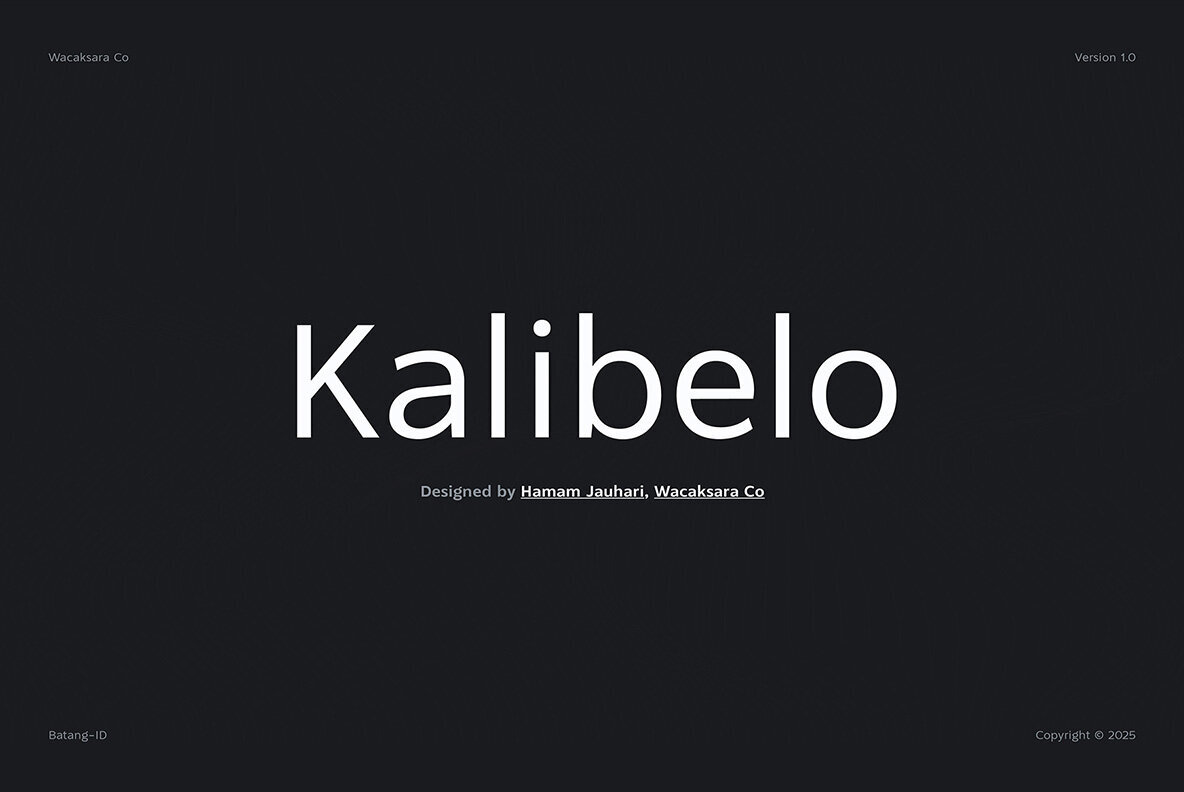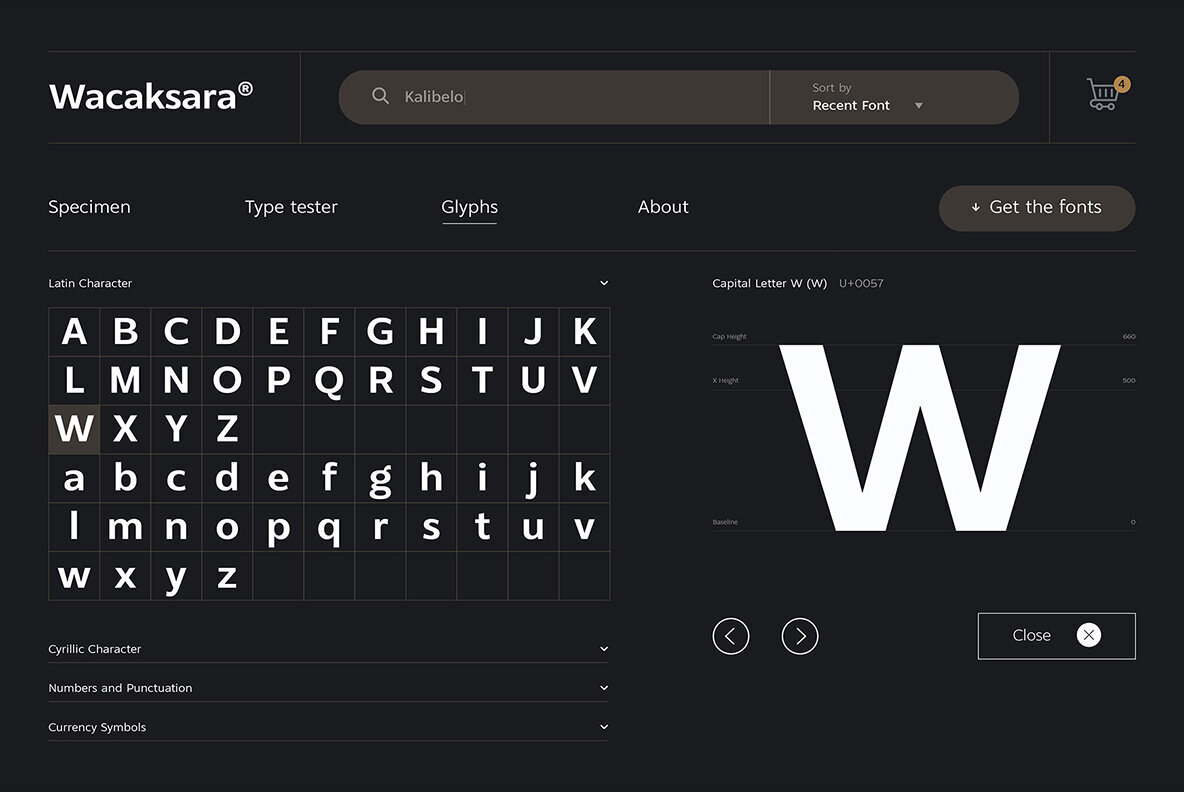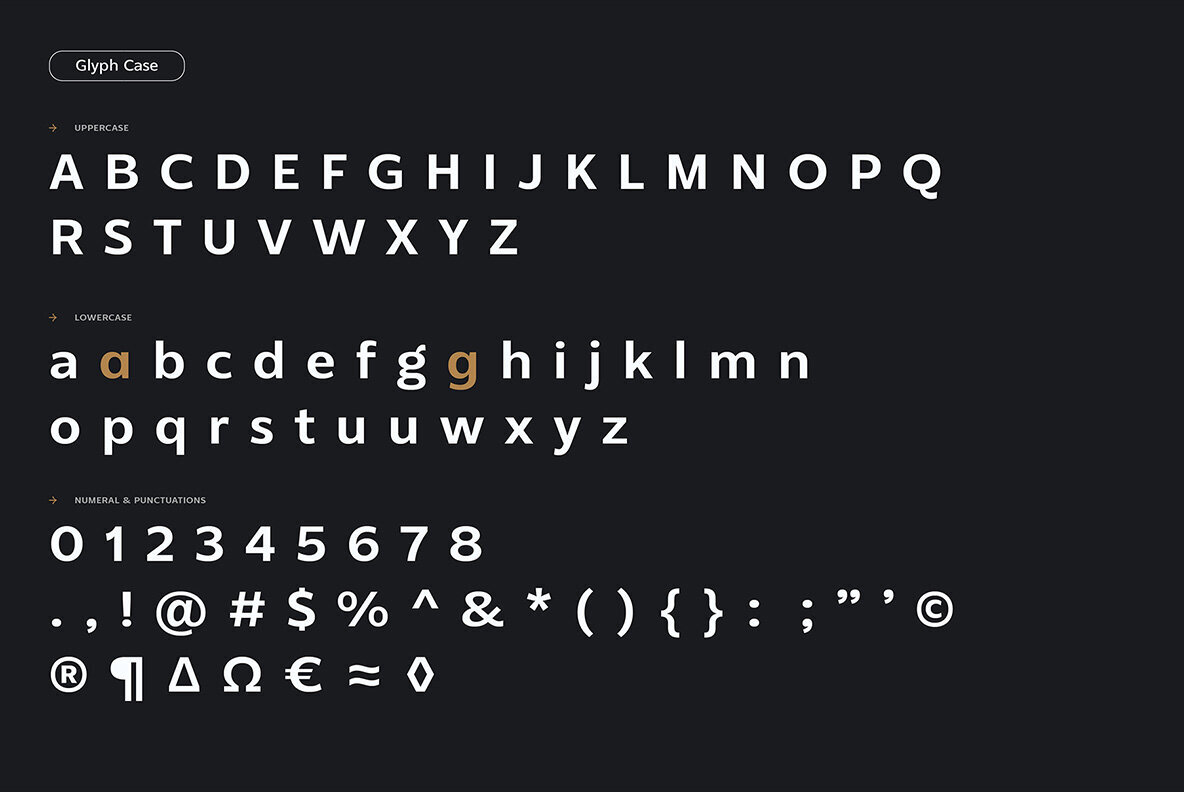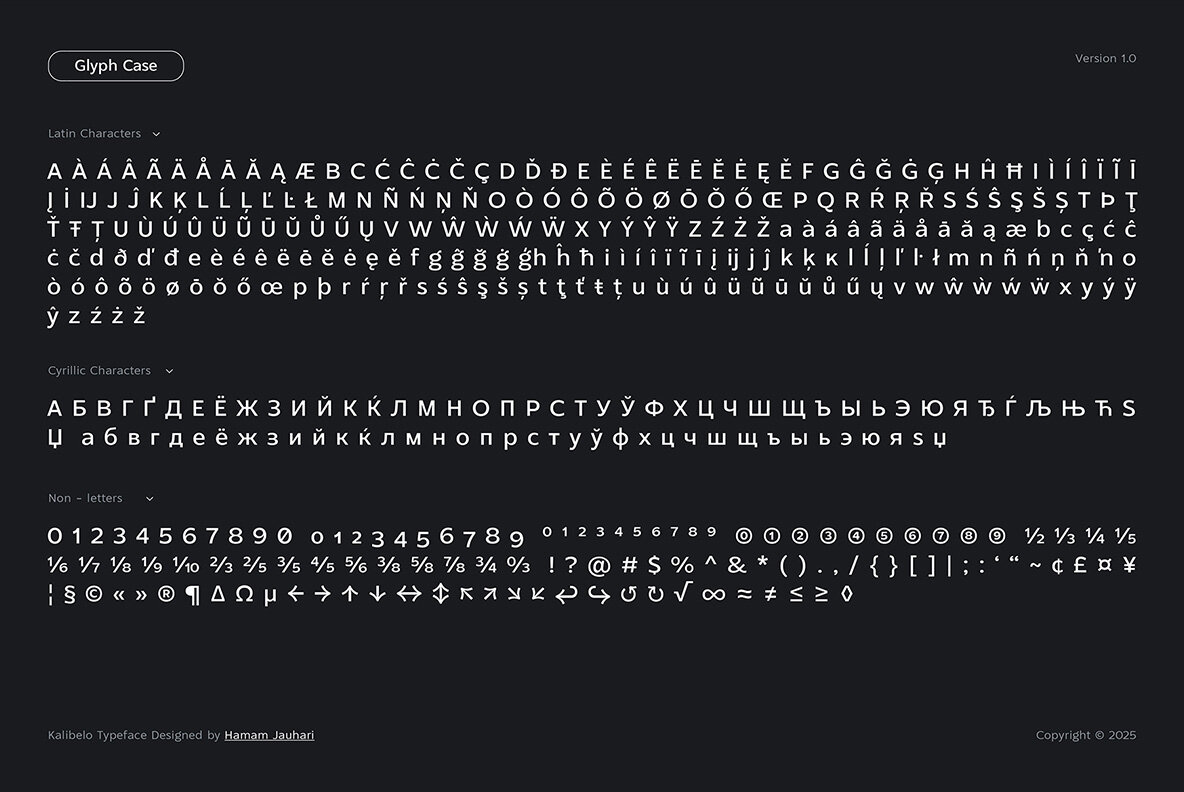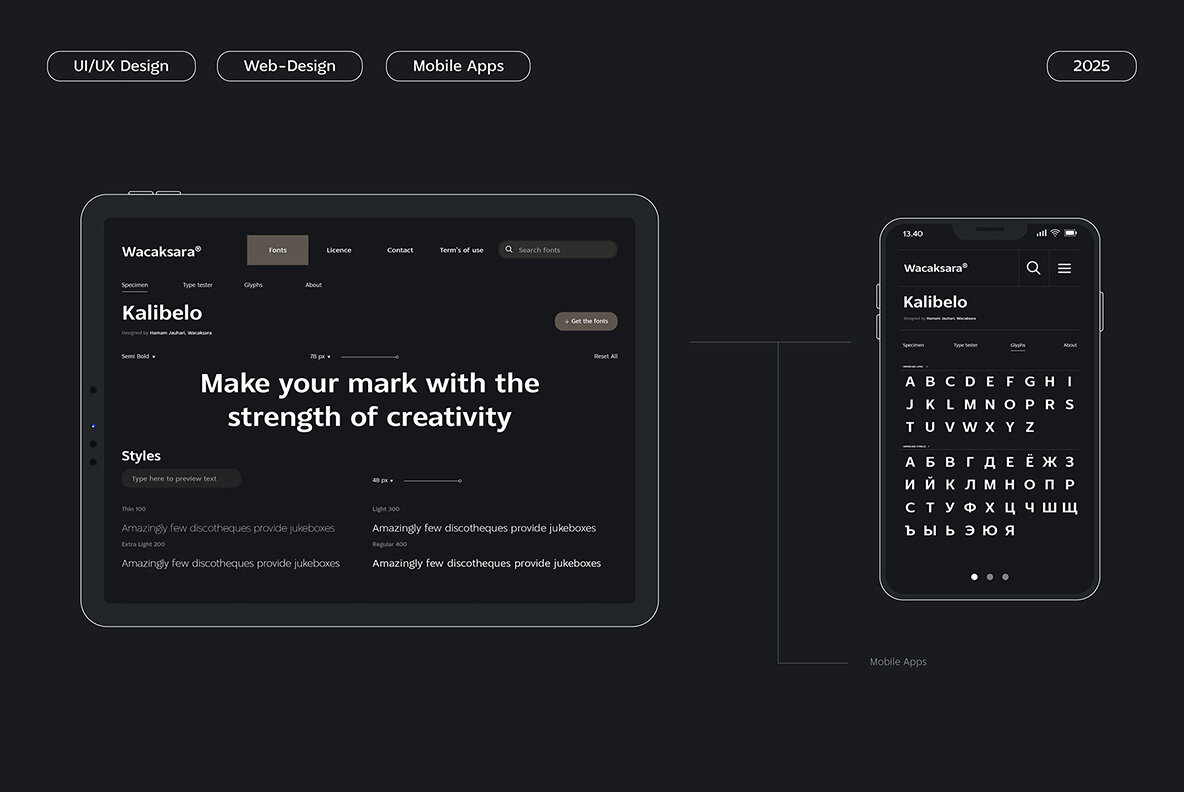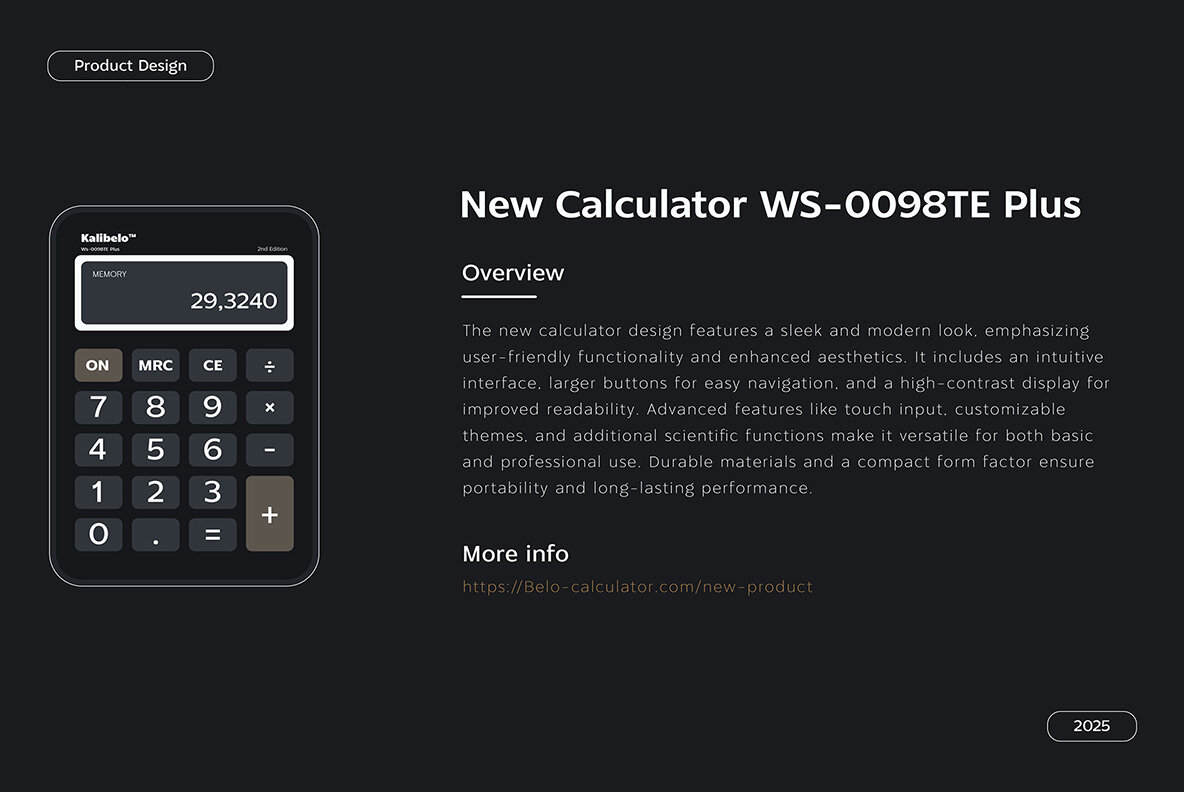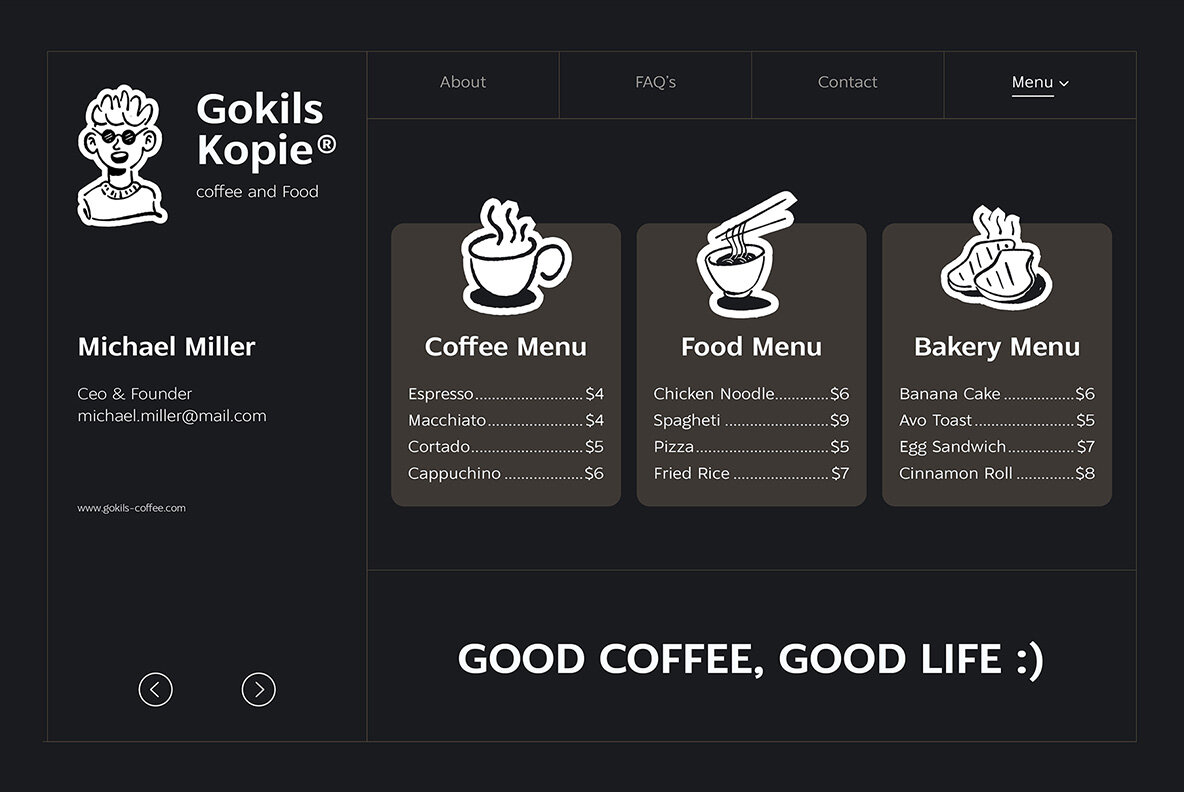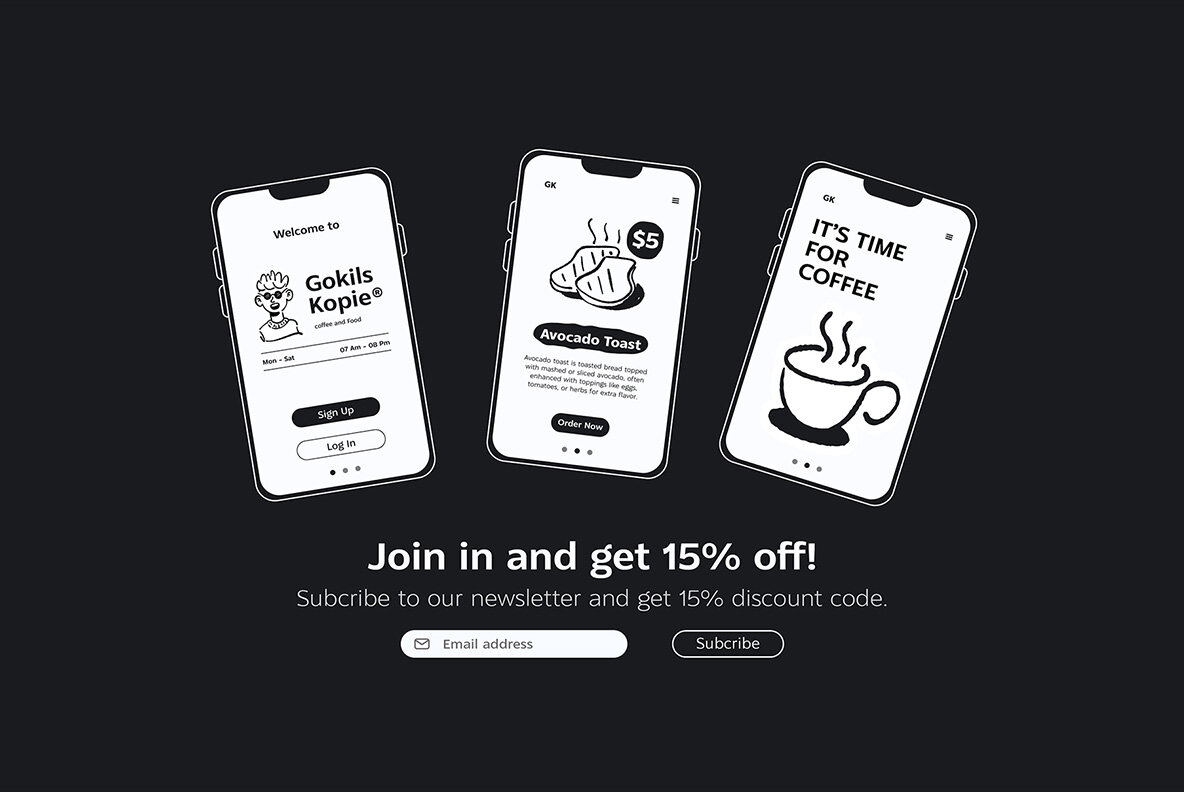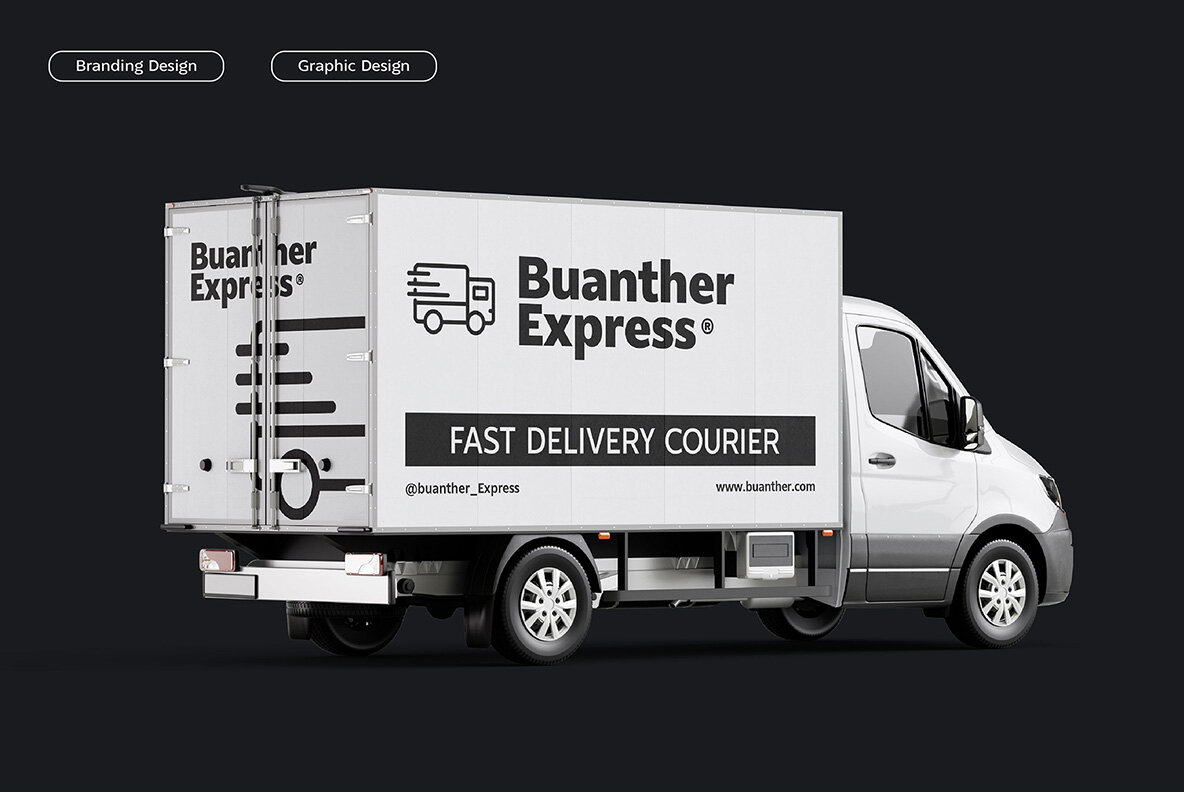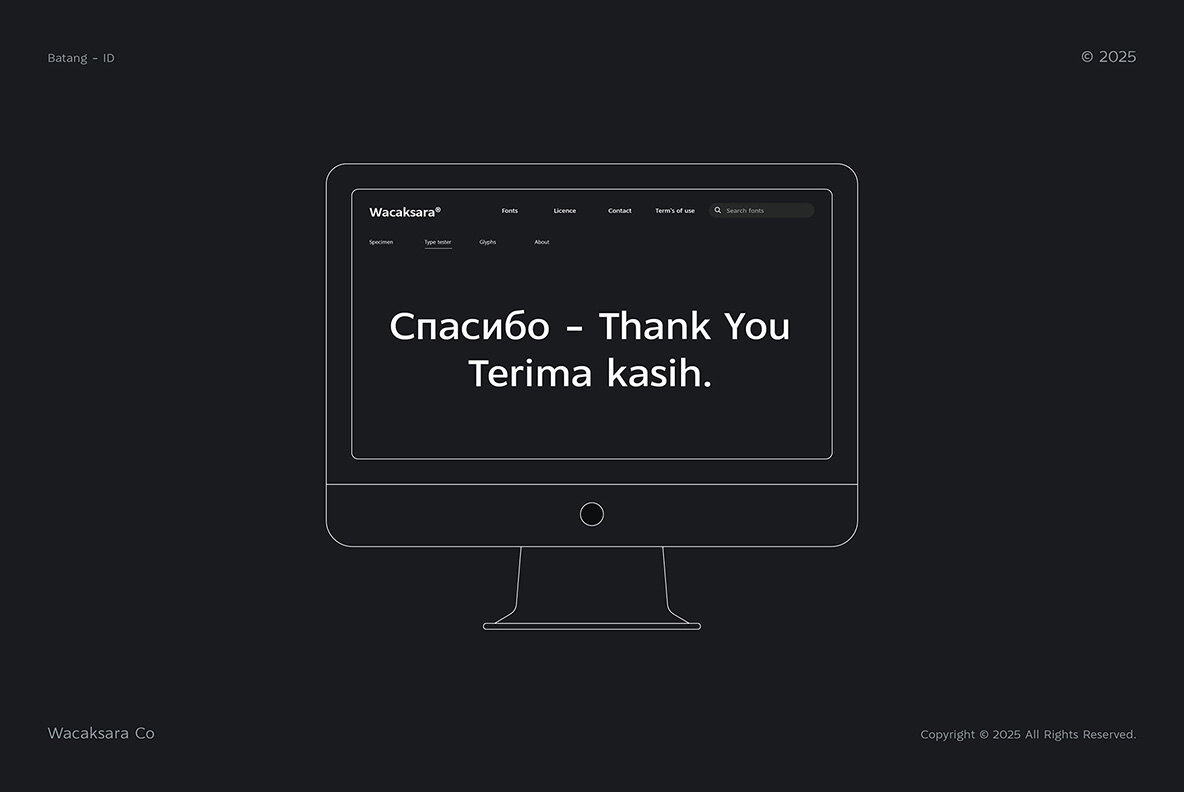
Kalibelo Font
Kalibelo is a versatile and contemporary sans-serif typeface family that offers nine distinct styles, ranging from Thin to Black. Designed with clean lines and harmonious proportions, Kalibelo is ideal for a variety of design projects such as web development, branding, advertising, print, and editorial work. Its minimalist design adapts seamlessly to both digital and print media, catering to all creative demands with ease.
This typeface not only boasts extended Latin and Cyrillic support but also includes robust OpenType features. With over 500 glyphs, Kalibelo offers comprehensive coverage, including numerals and punctuations. Its excellent readability and language support make it a top choice for designers seeking a modern and flexible font solution for diverse applications.